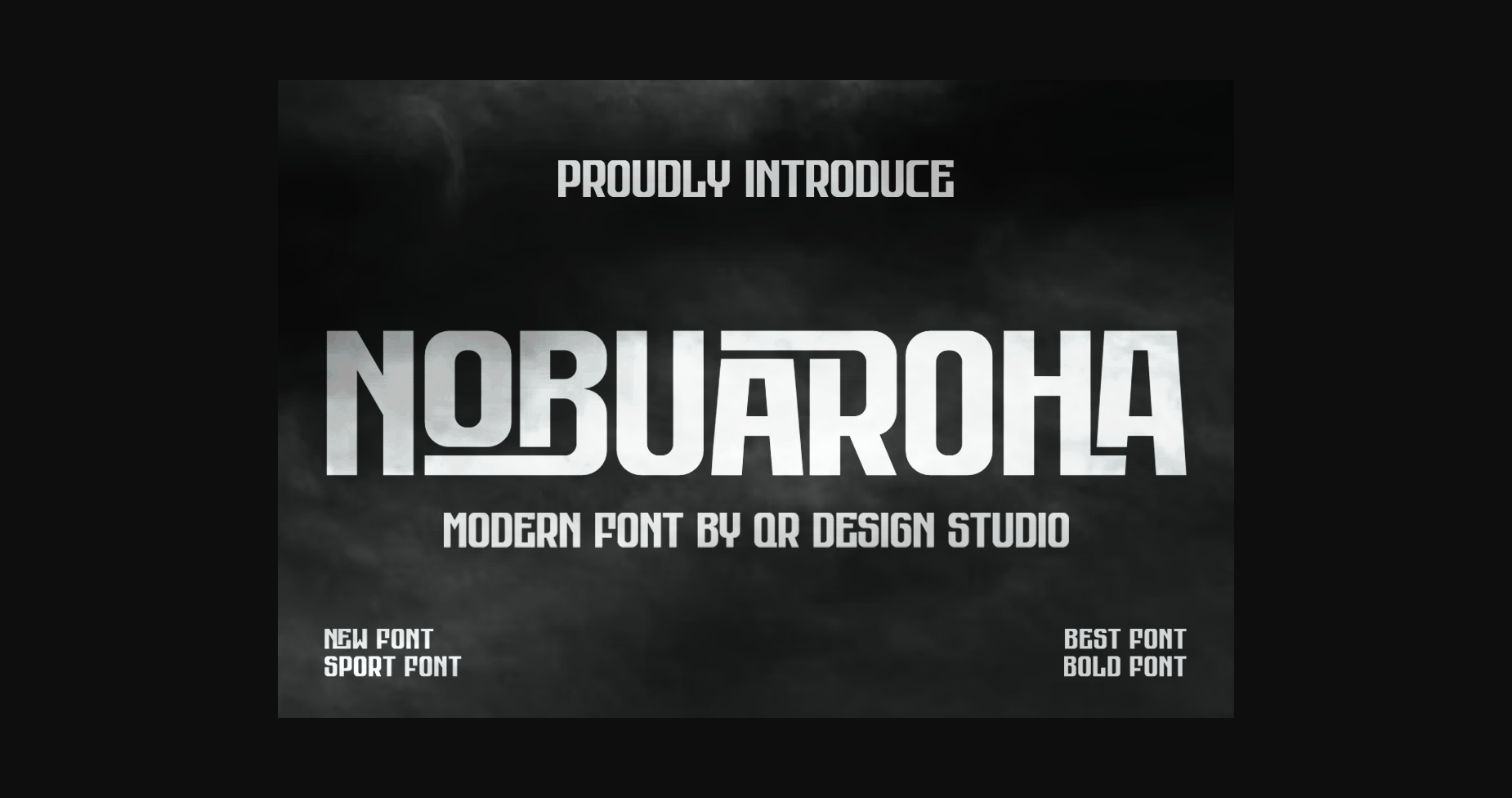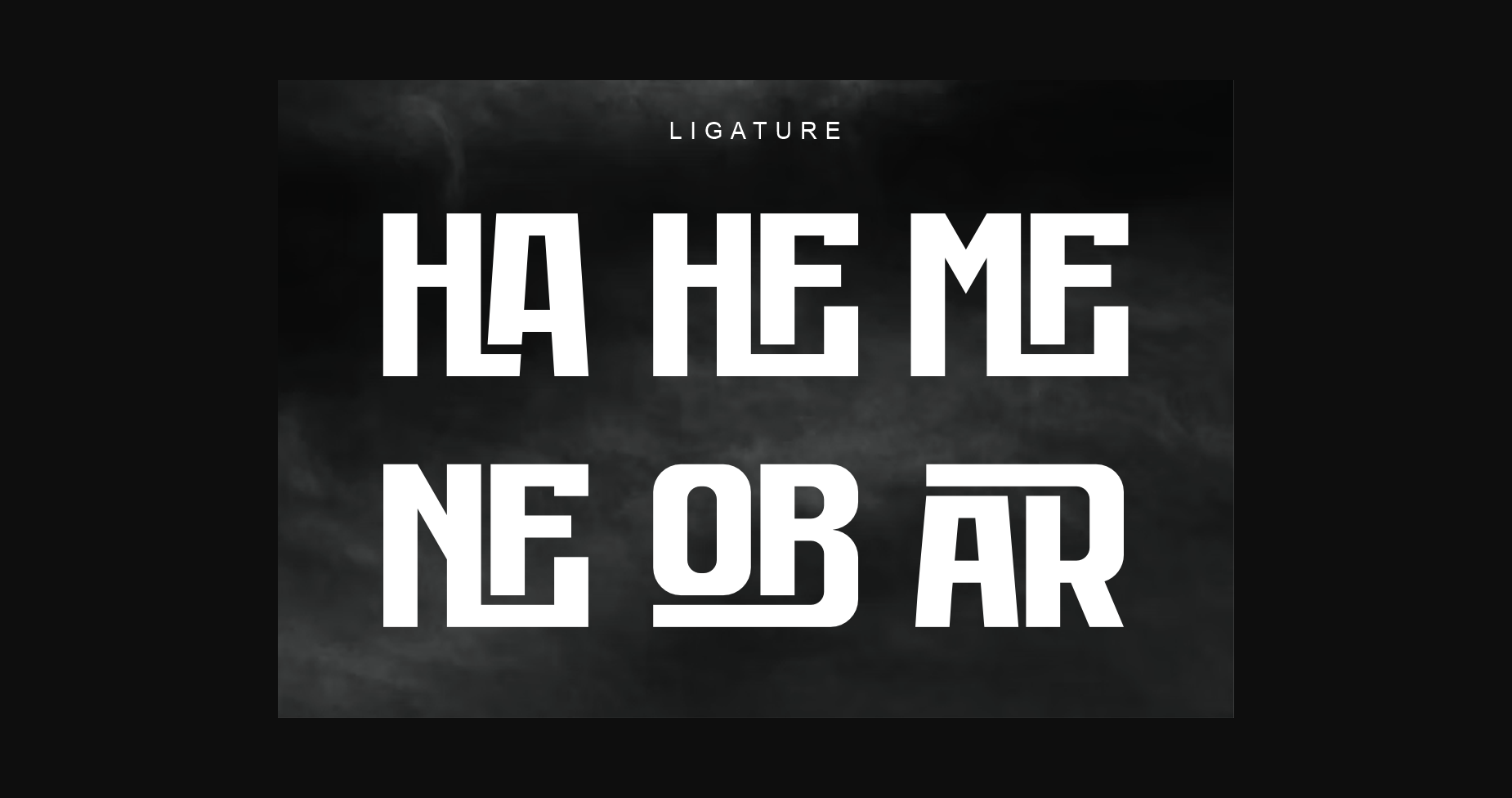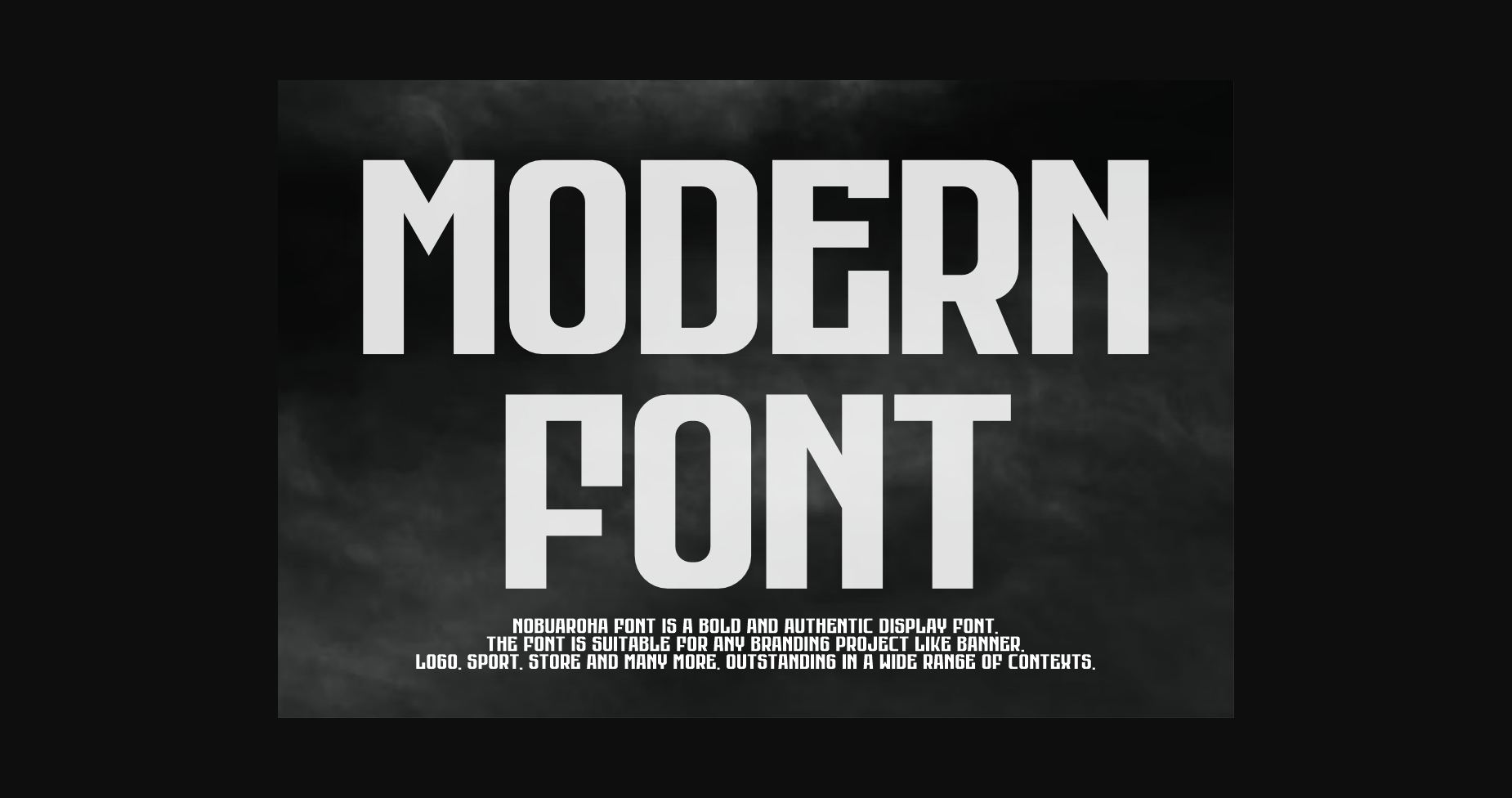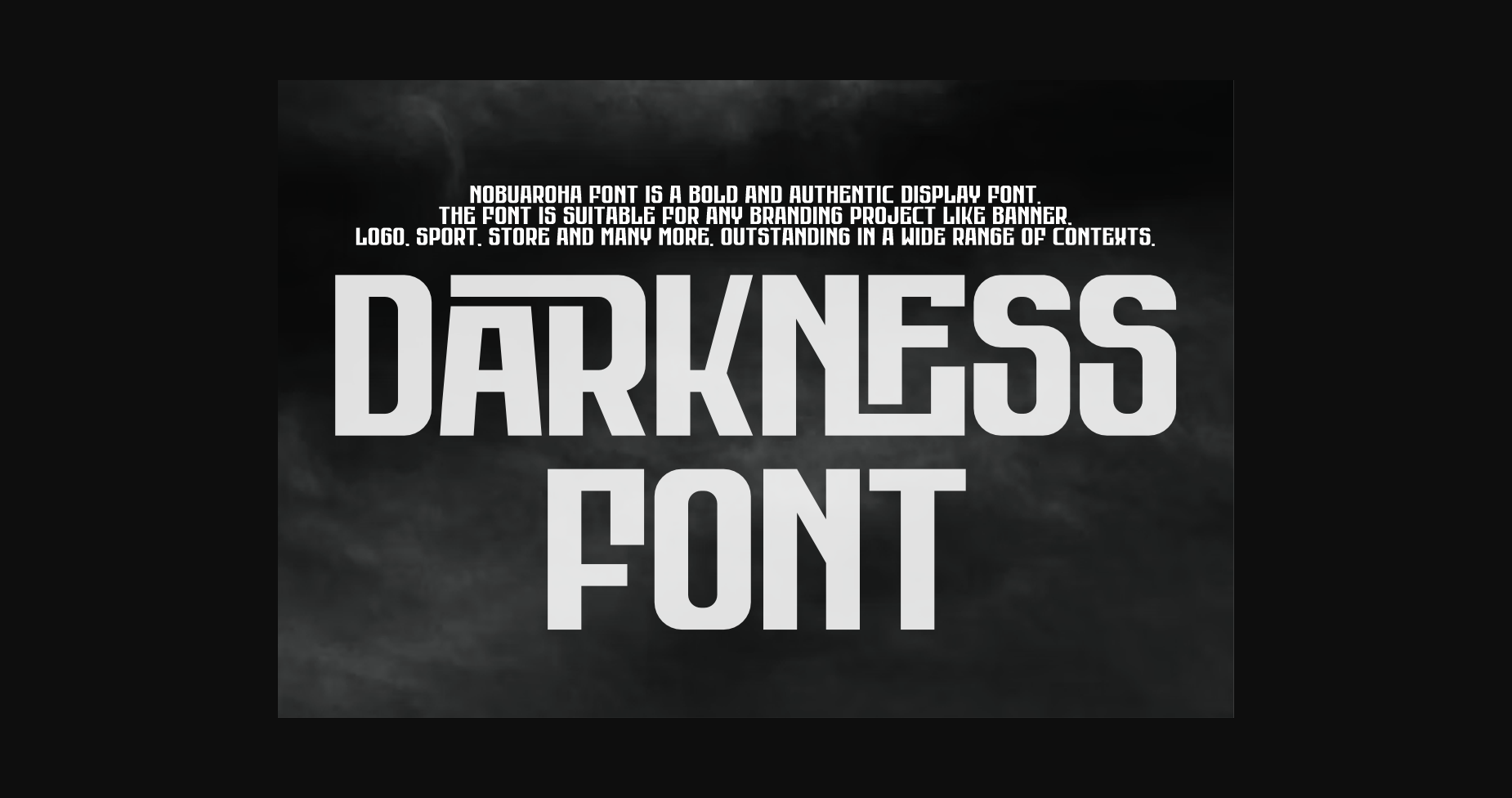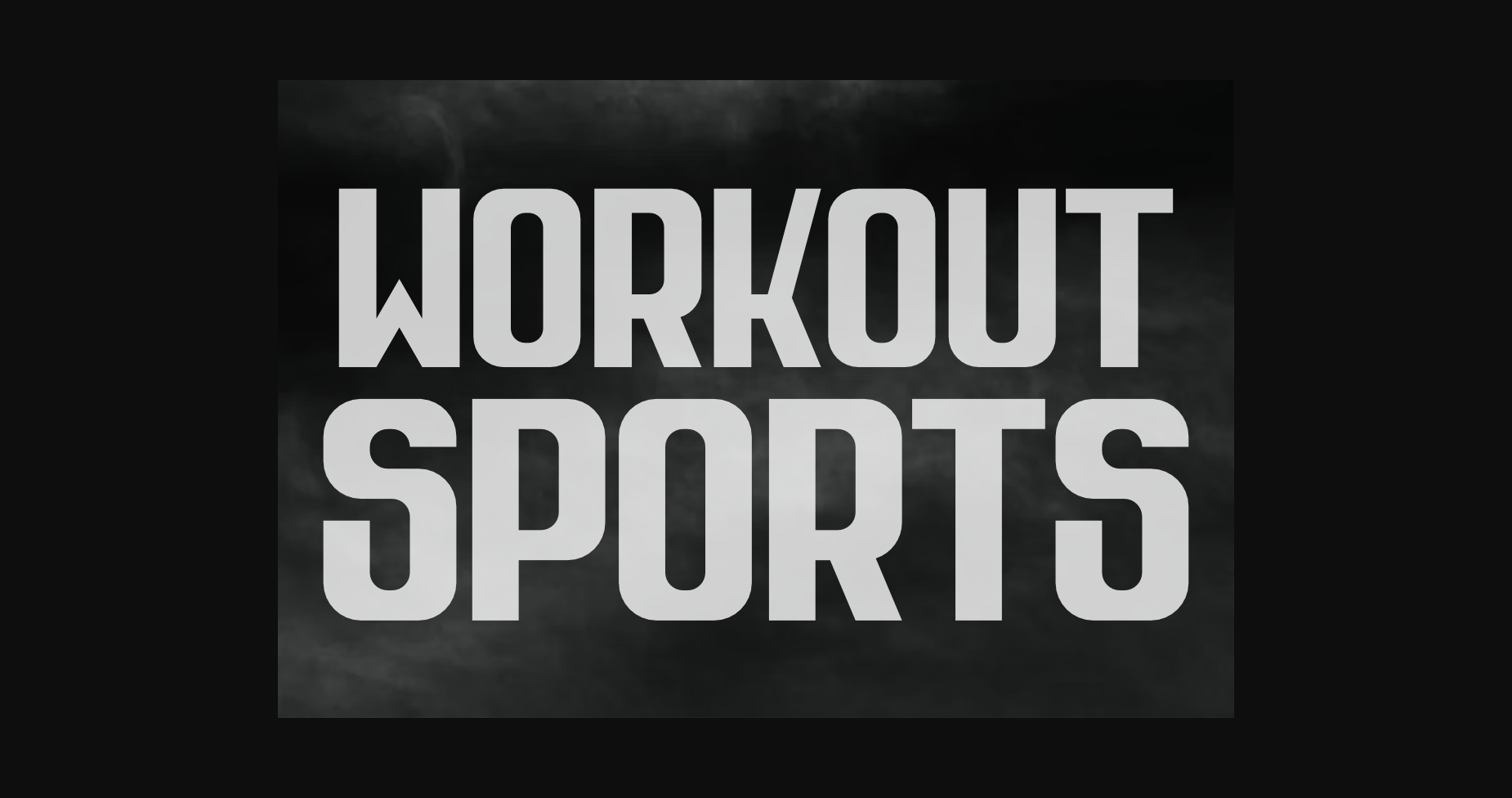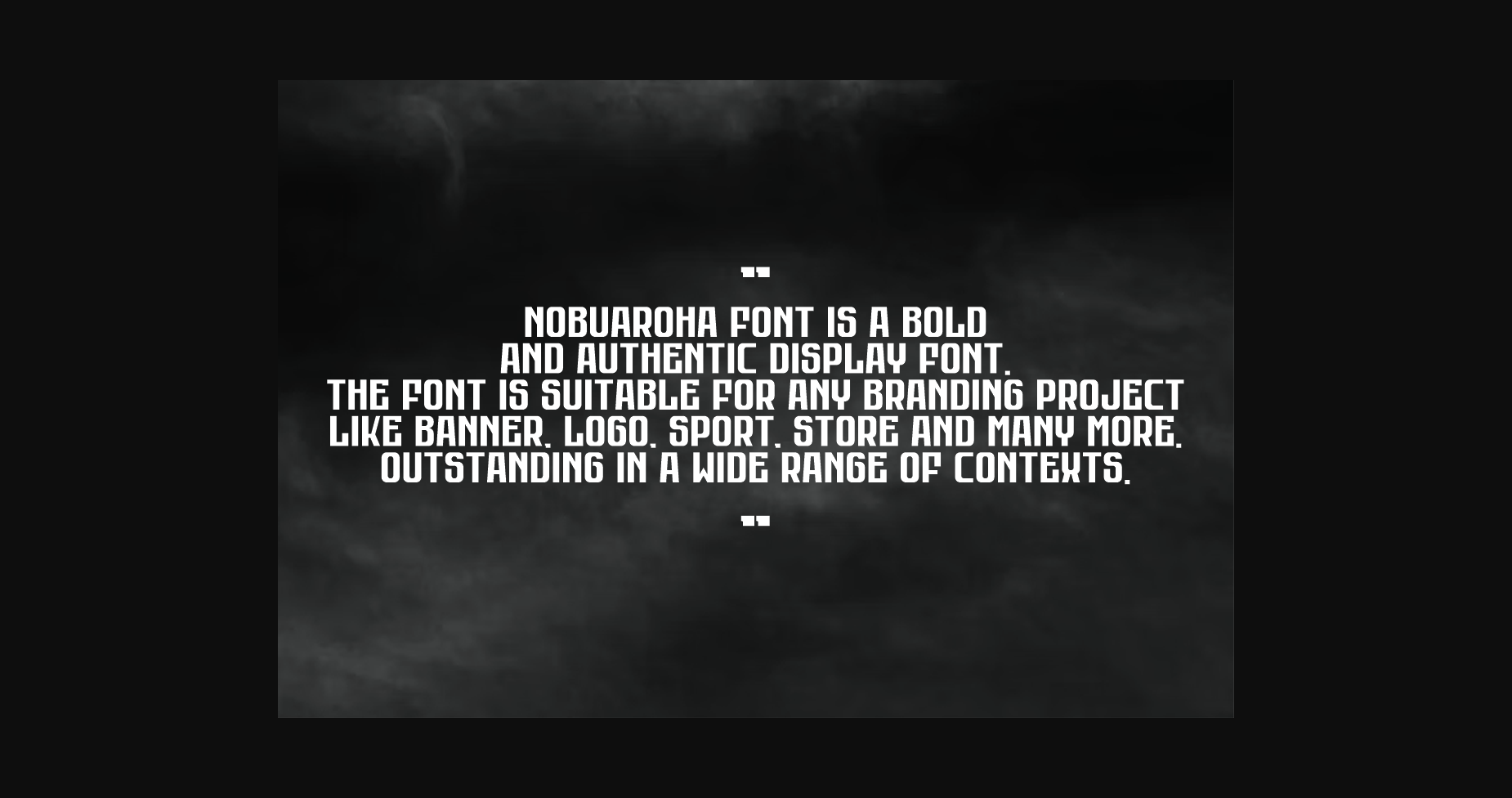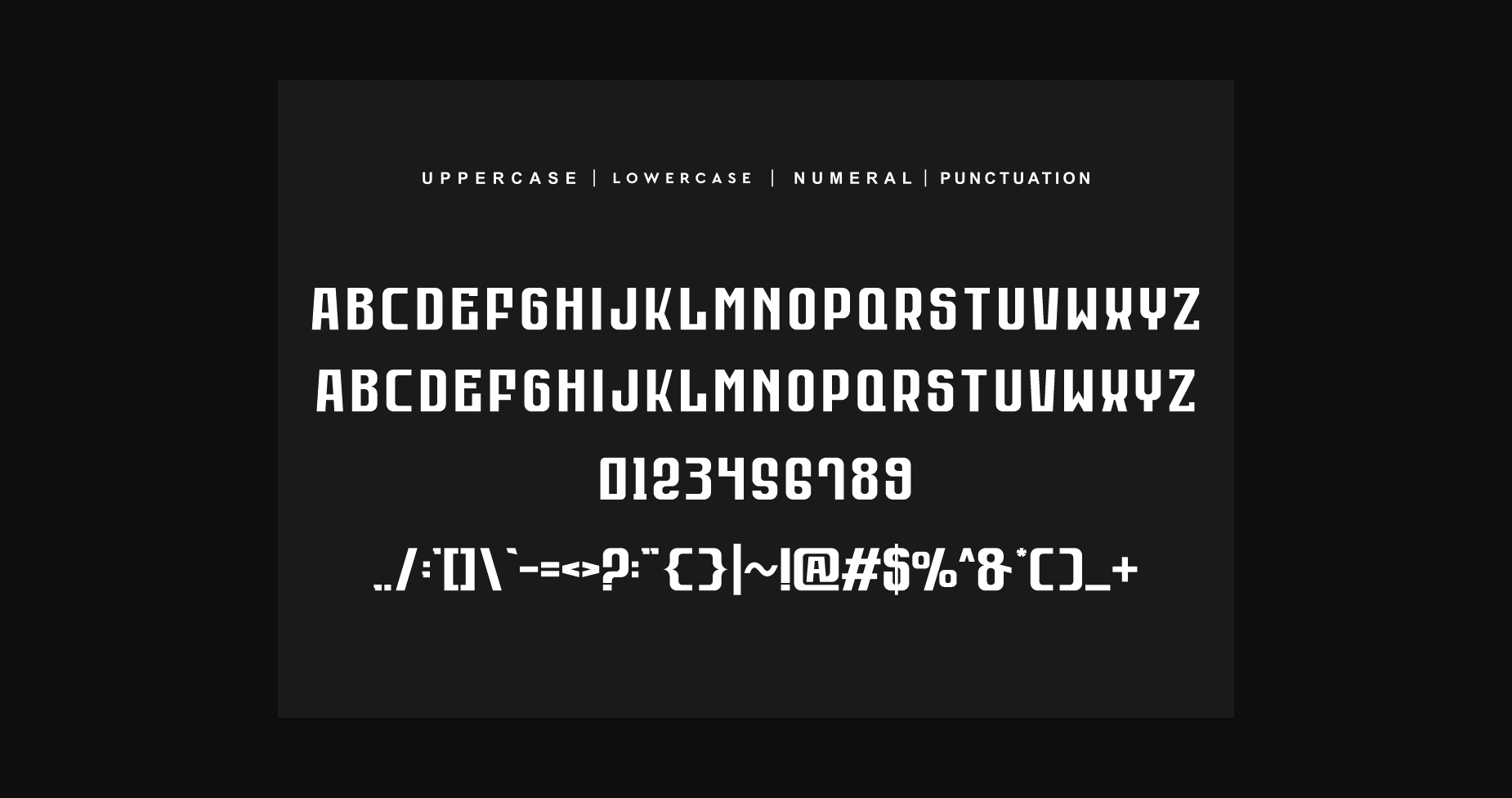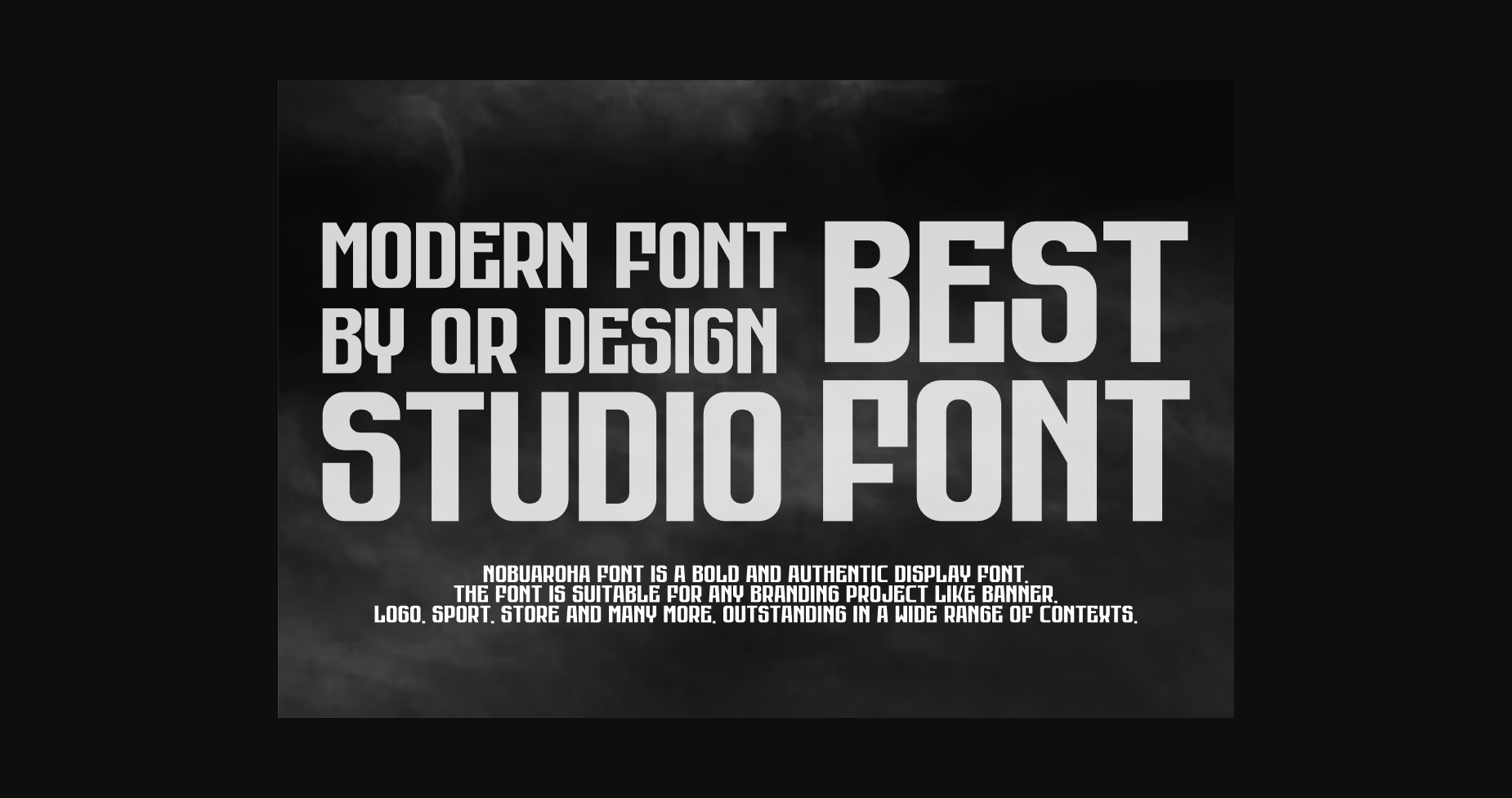
Nobuaroha Font
About Nobuaroha Font
Nobuaroha Font is a bold and authentic display font.
The font is suitable for any branding project like logo, sport, and many more.